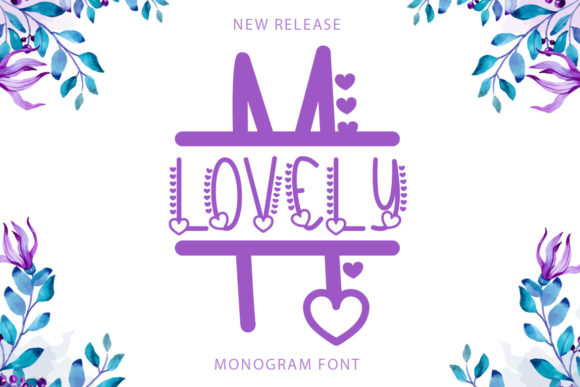
Introducing Lovely Monogram Font, the ultimate decorative font that will transform your creative visions into stunning masterpieces! Immerse yourself in a world of captivating designs, where every letter dances with intricate details and exudes a charm that will leave you spellbound.
Designed to ignite your imagination, Lovely Monogram Font empowers you to create personalized monograms, elegant invitations, heartfelt cards, and an array of captivating designs that will turn heads. Its versatility knows no bounds, making it the perfect companion for a multitude of projects, from crafting heartfelt gifts to designing enchanting logos.
Step into a realm where creativity flourishes, and let Lovely Monogram Font guide you on an extraordinary journey. Its graceful curves and whimsical flourishes will add a touch of magic to your designs, making each project a reflection of your unique style.
Unleash the boundless possibilities that await you with Lovely Monogram Font. Let its enchanting allure captivate your audience and leave a lasting impression that will ignite their imaginations. Embrace the power of beauty and creativity, and experience the transformative power of Lovely Monogram Font today!
Created by the talented BaeMary, Lovely Monogram Font is a testament to the artistry and passion that drives the world of typography. Its unique character and undeniable charm will undoubtedly make it a beloved addition to your font collection.
With Lovely Monogram Font at your fingertips, the possibilities are endless. Let your creativity soar, and embark on a design adventure that will leave a trail of beauty and inspiration in its wake.